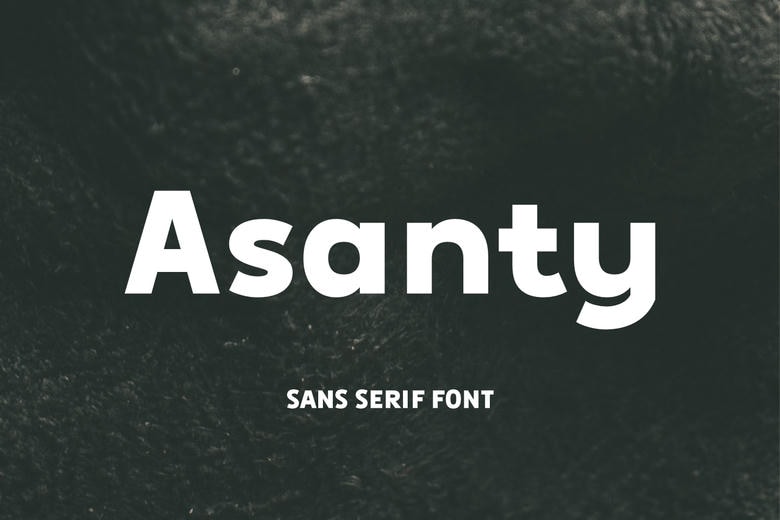
Asanty Font
Asanty is an elegant and at the same time highly contrasting sans serif font. Overall, its appearance is sleek, which is a very legible font, especially after the so-called post modern period. Ideally suited to headlines and signs, Asanty provides a powerful and direct message when the need for much graphic design is unnecessary.
Asanty Sans Serif Font